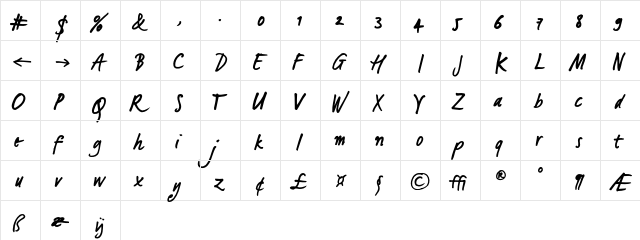
LucasHandFeetSemi Regular Font Preview
LucasHandFeetSemi Regular
Design Context for LucasHandFeetSemi Typeface
LucasHandFeetSemi flows with the natural rhythm of handwritten lettering, making it ideal for designs that call for warmth and personal expression.
Font Pairing: Combine LucasHandFeetSemi with a simple geometric sans for maximum contrast — the tension between flowing curves and clean structure is a classic typographic pairing.
Pro Tip: Use LucasHandFeetSemi for short runs of text — names, titles, or taglines. Extended body copy in script faces tires the eye quickly.